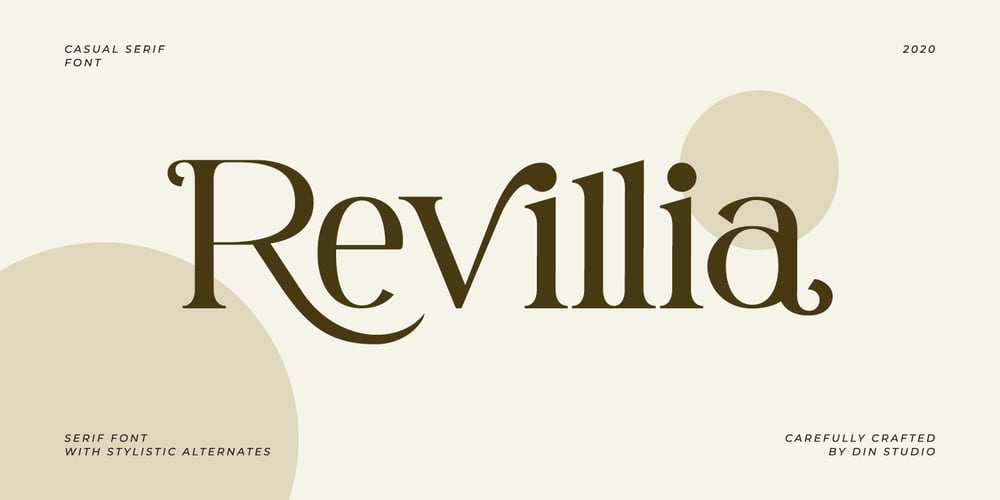
Revillia Font Family was designed by Donis Miftahudin and published by Din Studio. Revillia contains 1 styles and family package options. Revillia is modern serif font. Made for any professional project branding. It is the best for branding, printing, wedding and quotes. Every letter has a unique and beautiful touch.Features: Beautiful Ligatures Many Swashes Stylistic Sets PUA Encoded Multilingual Support Numerals and Punctuation